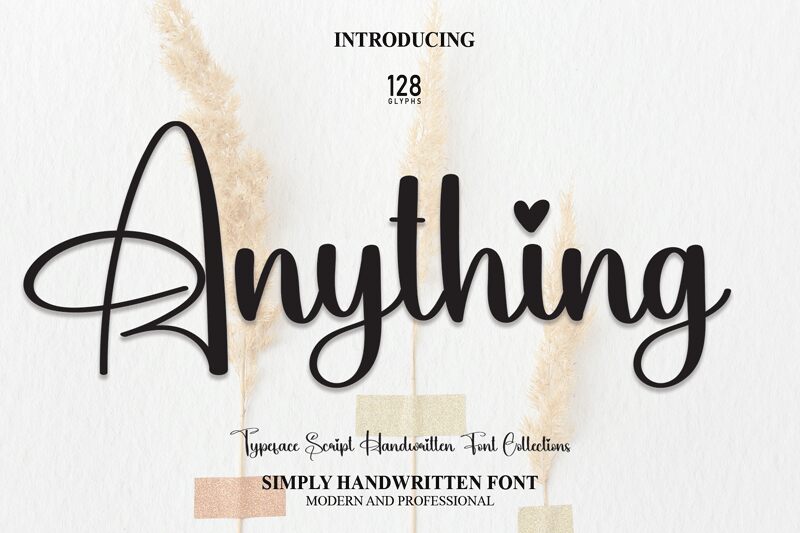
Anything
The Anything font by Scratchones is an exquisite calligraphy typeface, offering a touch of elegance to any project.
With its semi-light weight, this font adds a delicate and sophisticated feel to invitations, wedding stationery, and greeting cards. Its graceful curves and intricate details make it perfect for branding luxurious products such as high-end fashion items or beauty cosmetics. Additionally, the Anything font brings a refined aesthetic to editorial designs, including magazine covers or book titles.
Let this stunning calligraphy font elevate your creations with its timeless charm and artistic flair.